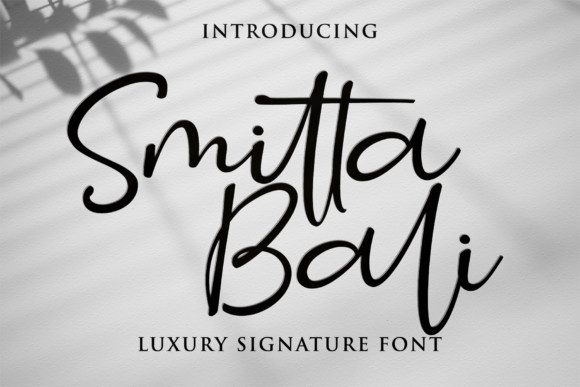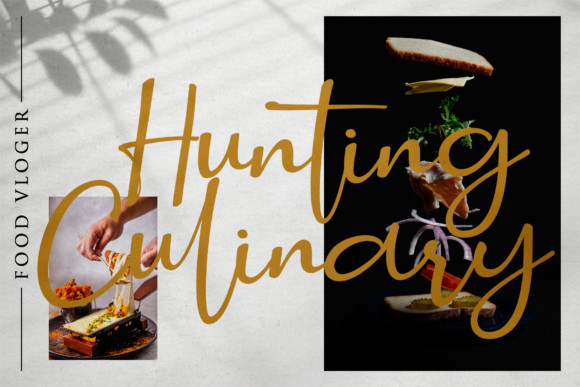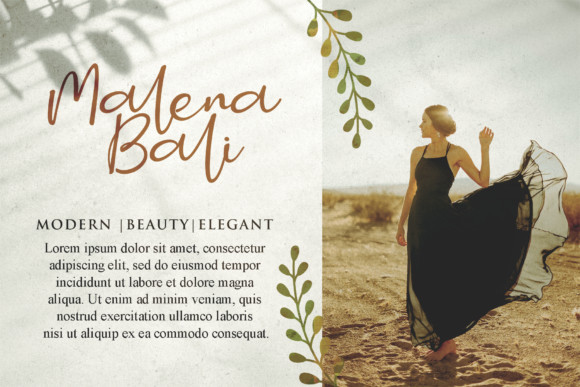
Smitta Bali Font
Smitta Bali is a casual and cute script font. Get inspired by its sophisticated feel and use it to create gorgeous wedding invitations, beautiful stationary art, eye-catching social media posts, and cute greeting cards.